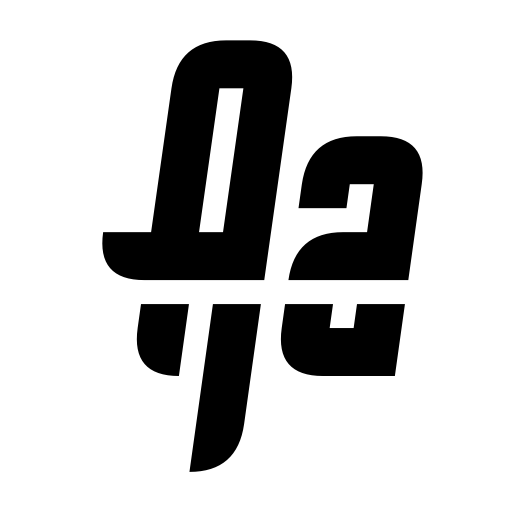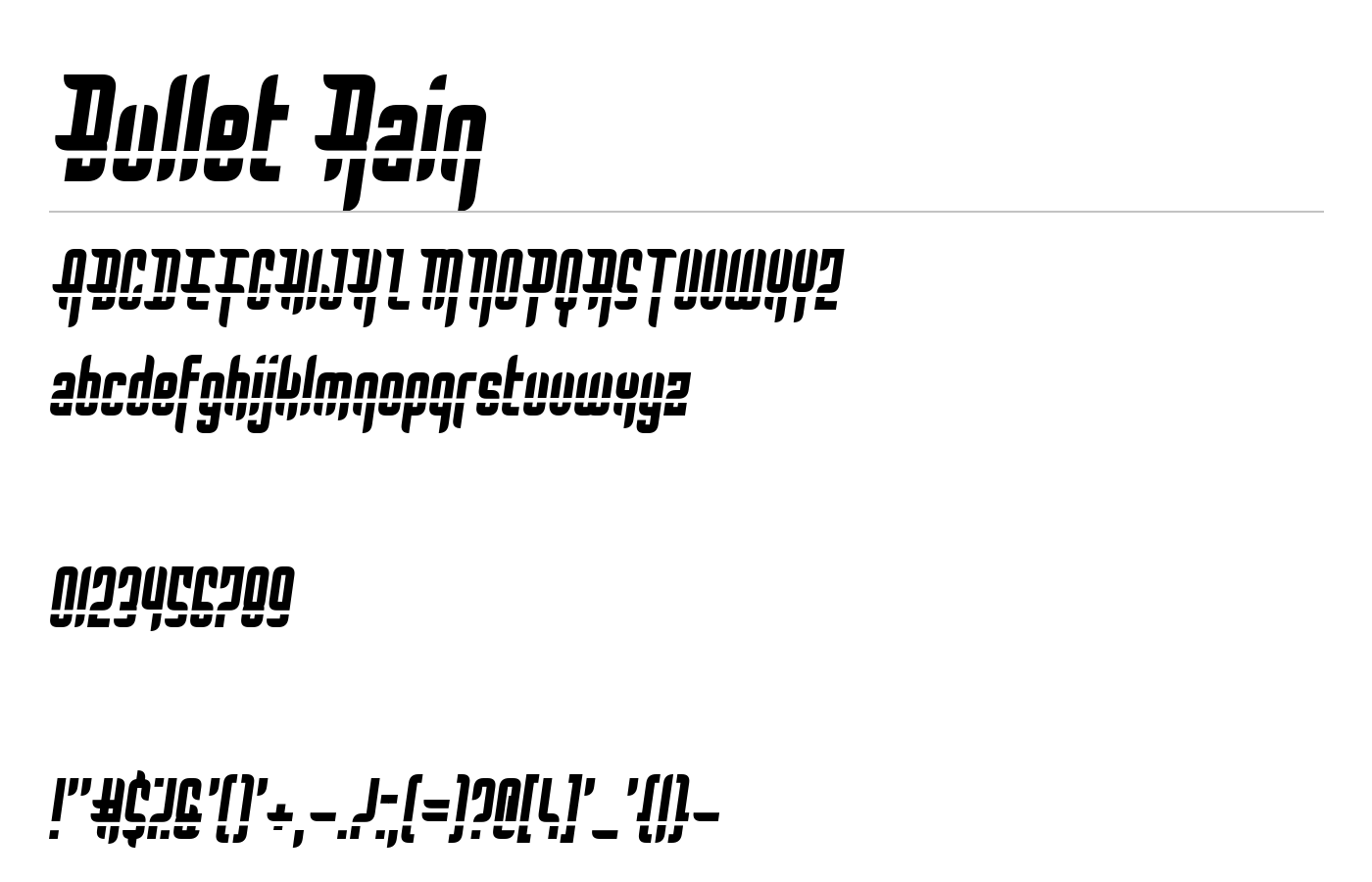
Bullet Rain is a bold, condensed sans serif font with a strong slant and high contrast between thick and thin strokes, giving it a dynamic, energetic feel. Its geometric shapes and unique letterforms create a modern, edgy style that works well for striking headlines, logos, and branding that aims to capture attention and convey intensity. This font is perfect for sports, action, or futuristic themes where a sense of movement and impact is desired.
Bullet Rain Font
About Bullet Rain Font